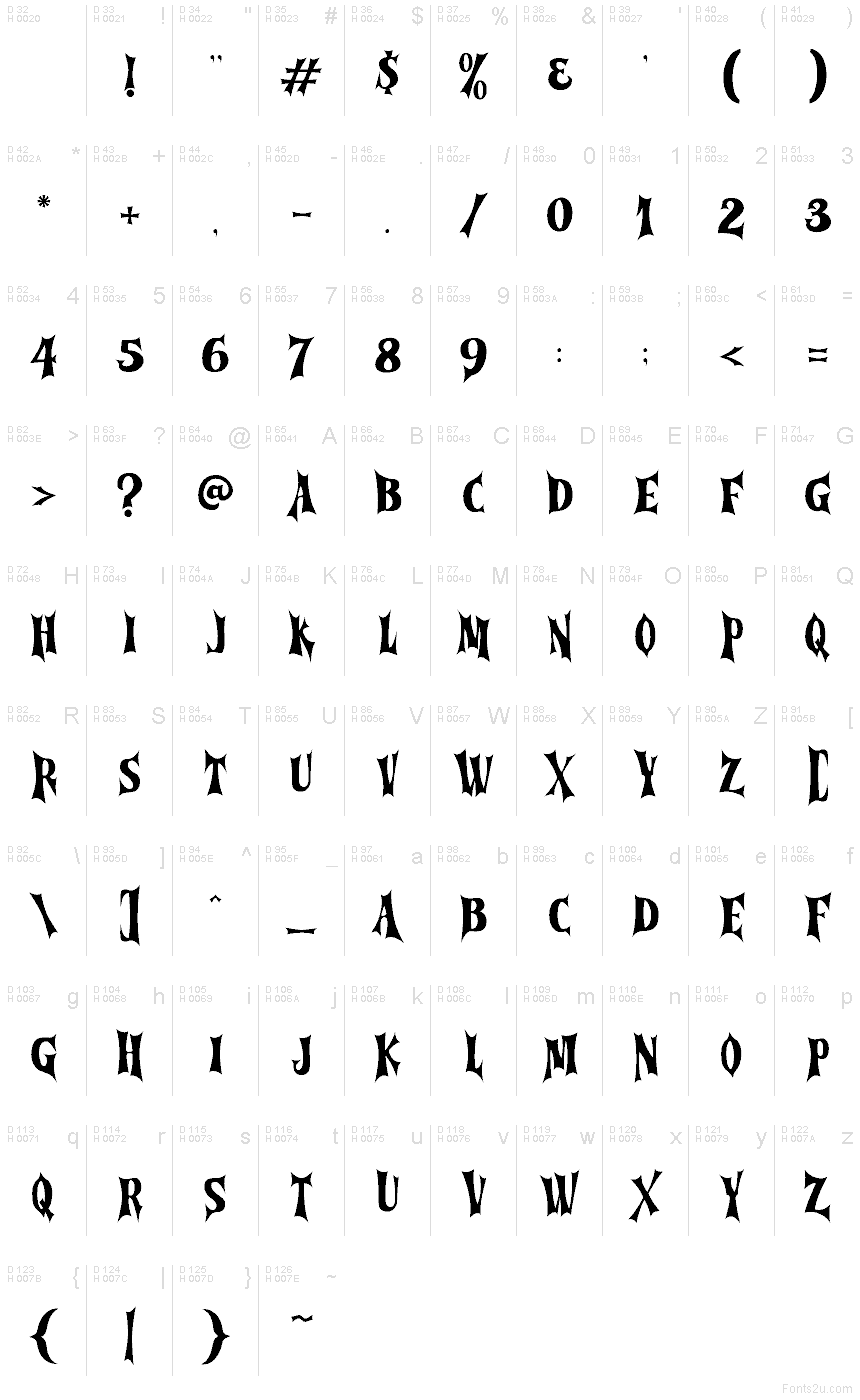
Cursed Gothic
Cursed Gothic font by PutraCetol Studio is a free Halloween display font. Its blade-like curves and candle-flame spires carve into the page, mixing medieval blackletter energy with thorny, modern edges. The letters feel inky and jagged yet surprisingly even in rhythm, so headlines snap into place and read with dramatic clarity at big sizes.
Using Cursed Gothic, you can punch up haunted house posters, horror film titles, party invitations, game logos, YouTube thumbnails, and merch graphics. This free font shines when you let it breathe—set it large, tighten tracking slightly, and pair it with a plain, light-weight sans to keep the message sharp and legible.